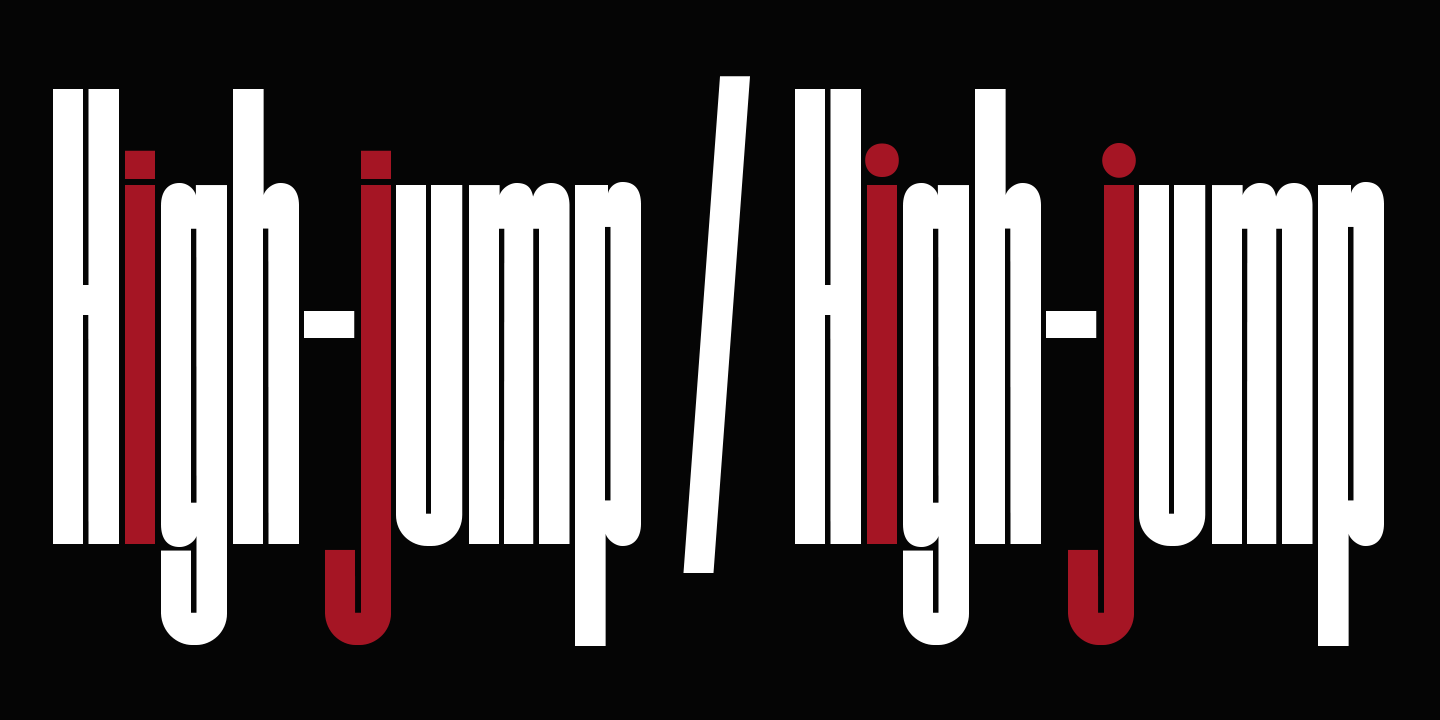
Neumatic Compressed Font is ideal for industrial automation interfaces, pneumatic system documentation, compressed air equipment branding, mechanical engineering presentations, high-pressure technology graphics, industrial machinery labeling, technical specification layouts, engineering workflow diagrams, pressure system signage, and advanced manufacturing communications. This technical typeface excels in applications where industrial precision and mechanical efficiency need to be communicated with compressed clarity and systematic pressure that embodies the essence of pneumatic engineering and the controlled force found in industrial automation and compressed air technology systems.
What makes Neumatic Compressed Font exciting is its remarkable ability to embody the controlled pressure and systematic efficiency of pneumatic systems through its precisely compressed letterforms that seem to capture the concentrated power and mechanical precision that defines advanced industrial automation and compressed air technology. The font reflects the spirit of industrial engineering with its pressure-optimized construction and mechanically efficient proportions that suggest the systematic control and reliable performance that characterizes professional pneumatic systems. Its systematically engineered character details and industrial personality create an atmosphere of technical confidence that resonates with engineers, industrial designers, and automation professionals who understand the critical importance of precision, reliability, and systematic efficiency in industrial pneumatic applications.
The Neumatic Compressed Font family typically includes Light, Regular, Medium, and Bold weights, each maintaining the signature compressed characteristics and industrial precision. Some versions offer ultra-compressed variants for maximum space efficiency, alternative character sets with technical symbols and pneumatic notation, and specialized treatments designed for industrial documentation and technical specifications. The family may also include outline styles that emphasize the pressure-optimized structure and display cuts designed for maximum industrial impact in engineering and automation applications requiring authentic technical credibility.
Whether you're creating industrial automation brands, technical documentation systems, or pneumatic engineering communications, Neumatic Compressed Font Free Download delivers the perfect industrial precision your technically-focused projects deserve. Its compressed character and mechanical styling make it an invaluable asset for engineering firms, industrial manufacturers, and automation companies working in pneumatic systems, industrial automation, and mechanical engineering sectors where authentic technical expertise and systematic industrial efficiency are essential for establishing credibility with engineering professionals who depend on precise, reliable industrial systems and compressed air technology solutions.